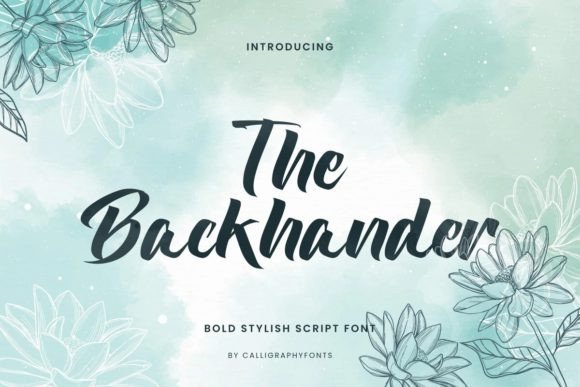
Unleash the Allure of Finesse with The Backhander: A Script Font Symphony for Timeless Elegance
In the realm of design, where aesthetics and communication intertwine, The Backhander font emerges as a captivating symphony of handwritten elegance. This script font, crafted with meticulous attention to detail by the renowned CalligraphyFonts, is not merely a collection of letters; it's an artistic expression that breathes life into your creative visions.
Experience the Unparalleled Grace of The Backhander:
- Immerse yourself in the beauty of The Backhander's flowing curves and delicate swashes that mimic the natural elegance of handwritten calligraphy.
- Witness the harmony of its carefully balanced strokes, creating a visual rhythm that dances across your designs.
- Revel in the versatility of The Backhander, effortlessly adapting to a myriad of design projects, from heartfelt wedding invitations to professional business cards.
With The Backhander, You'll Discover:
- The perfect font to add a touch of sophistication to your wedding invitations, conveying the joy and elegance of your special day.
- The ideal choice for expressing gratitude with thank-you cards, leaving a lasting impression of appreciation.
- A font that breathes life into quotes, capturing the essence of wisdom and inspiration.
- The perfect companion for greeting cards, adding a personal touch that resonates with your loved ones.
- A font that elevates logos, creating a distinctive identity that stands out from the crowd.
- The ultimate choice for business cards, exuding professionalism and leaving a lasting impact.
The Backhander: Your Gateway to Design Excellence
Whether you're a seasoned designer or embarking on your creative journey, The Backhander is your gateway to design excellence. Its user-friendly nature allows you to effortlessly incorporate it into your projects, transforming ordinary designs into captivating expressions of art.
Embrace the beauty of The Backhander today, and let your designs blossom with timeless elegance.